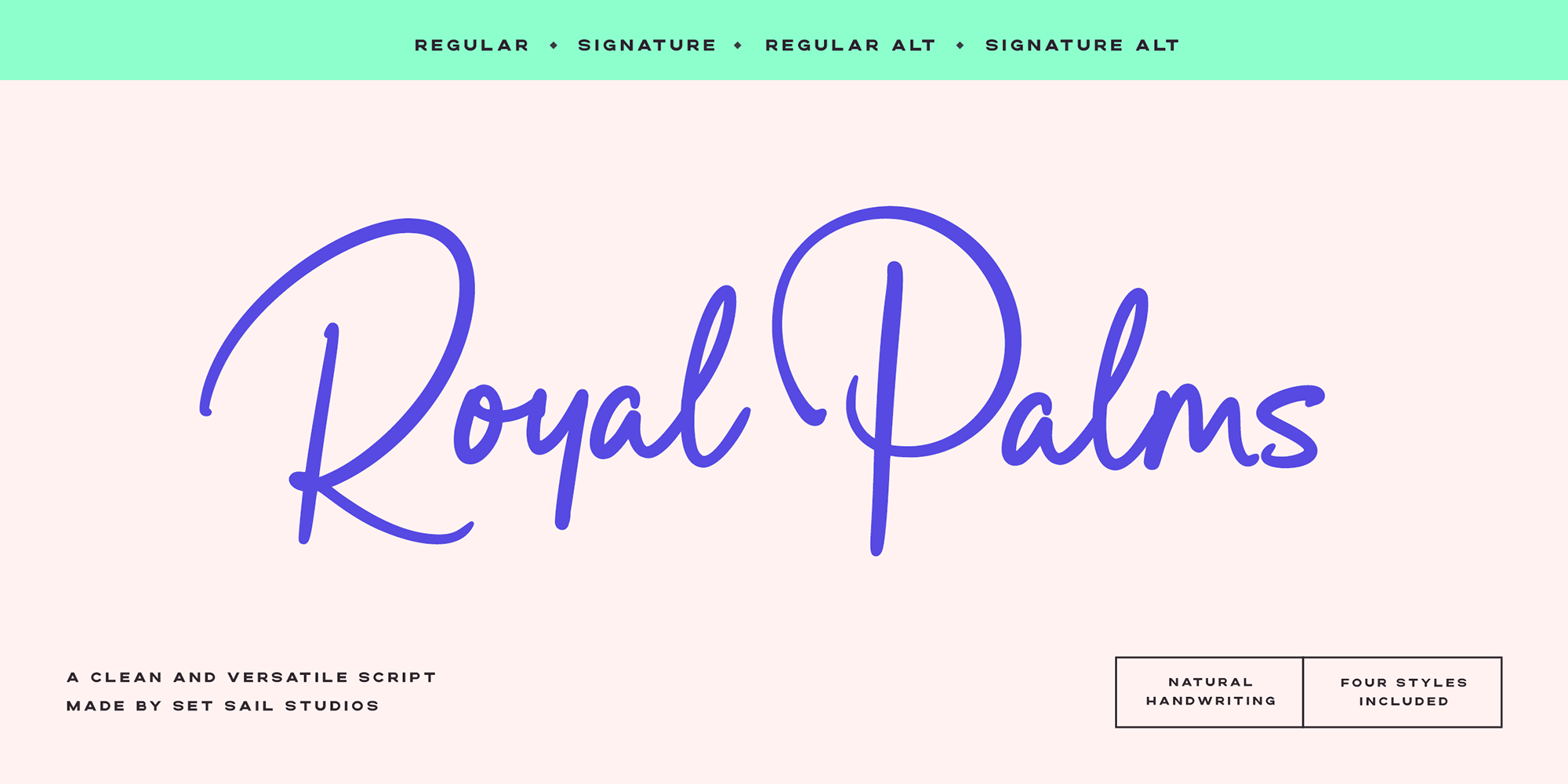
The Royal Palms Font is a fantastic choice for a wide array of design applications that aim for a sophisticated, tropical, and distinctly luxurious aesthetic. Imagine it gracing the branding of a high-end resort, lending an elegant touch to wedding invitations for a destination ceremony, or providing stylish headlines for a travel magazine focused on exotic locales. Its refined yet relaxed character also makes it ideal for cocktail bar menus, boutique fashion labels, and any project where a blend of classic elegance and laid-back paradise vibes is desired. This font excels in environments that prioritize both visual allure and a feeling of exclusive comfort.
What makes Royal Palms Font so exciting is its unique ability to evoke a sense of sun-drenched elegance and vintage charm, often reminiscent of mid-century resort glamour. It typically features graceful curves, balanced proportions, and a subtle interplay of formality and leisure that makes it truly captivating. This harmonious blend creates a distinct personality that is both inviting and refined. Whether it's the gentle sway in its ligatures or the refined flourish of its serifs (if it's a serif style), these thoughtful details ensure that your message is conveyed with both clarity and an undeniable touch of tropical sophistication.
The Royal Palms Font family is typically designed to offer variations that enhance its unique, aspirational character. While it might not have the extensive weight range of a utilitarian typeface, you'll often find a well-curated selection of styles. This could include a Regular weight for general use, perhaps a Bold for emphasis, or even a delightful Italic that perfectly complements its inherent grace. Some versions might also offer decorative alternates or ligatures that allow designers to further customize and enhance its luxurious appeal. These variations ensure that Royal Palms Font remains true to its distinctive, elegant identity, providing a cohesive and alluring aesthetic across all your projects. Discover its enchanting charm today – Royal Palms Font Free Download is available now!